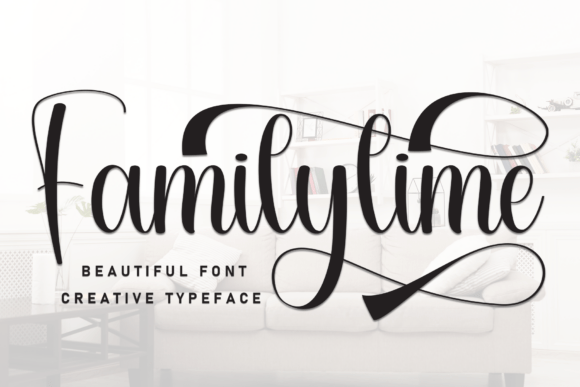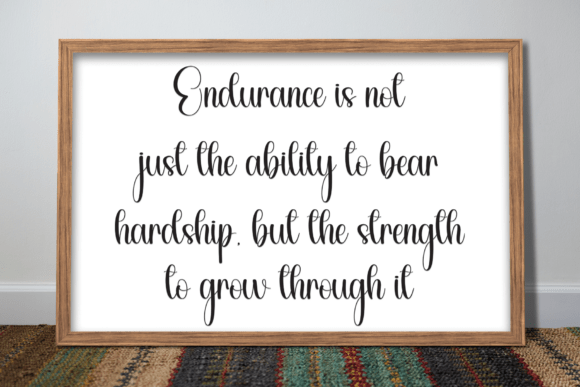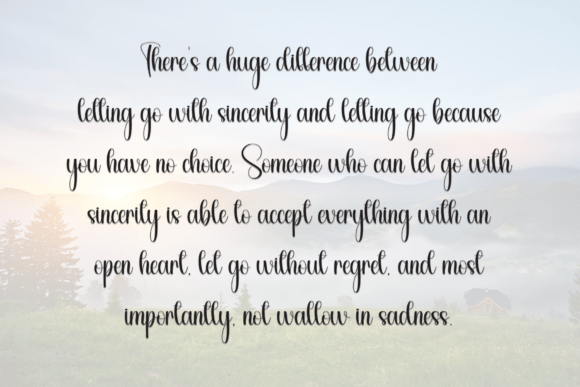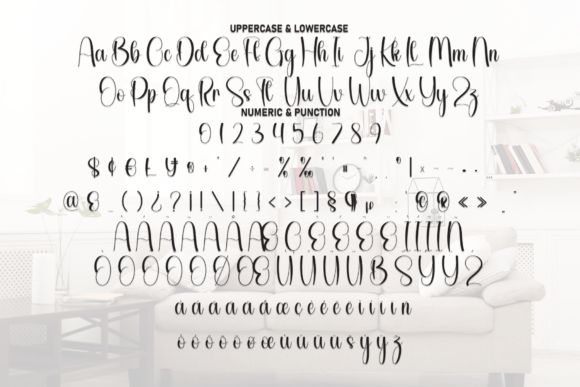
The Birth of a New Font: Capturing Life’s Pure Joy
Do you remember the first time you received a handwritten letter from a loved one? The way the ink bled onto the page, the imperfections that made it uniquely yours, and the sense of warmth that radiated from every word? It’s these small, human moments that Familytime Font aims to capture in its beautiful blend of handwriting and typography.
Designed to evoke the spontaneity and charm of artisanal work, Familytime Font is the perfect addition to any creative project seeking a relaxed elegance and a dash of whimsy. For designers, this font is a valuable tool in its ability to amplify the emotional resonance of a message, whether it’s a wedding invitation or a heartfelt note. By incorporating Familytime Font into your designs, you’ll be able to add a touch of enchantment that’s sure to leave a lasting impression.
Familytime Font Key Features
- Font Family: Familytime Font is a unique, custom-designed font family that includes multiple styles and weights.
- Unique Characteristics: Familytime Font features a distinctive, hand-drawn aesthetic with subtle irregularities, giving it a warm and inviting feel.
Designer Review: Familytime Font
Overall, I think the Familytime Font is a solid addition to any designer’s toolkit. ✨ Its friendly, approachable feel makes it perfect for family-focused projects, branding, and even children’s educational materials. The font is highly legible, making it easy to read even at smaller sizes.
One of the standout features of Familytime Font is its versatility. ✨ It comes in a range of weights, from light to bold, allowing designers to choose the perfect style to suit their project’s needs. The font also supports a wide range of languages, making it a great choice for international projects.
Limits and Drawbacks
While Familytime Font is a great choice for many projects, there are a few limitations to consider: ⚠️ The font may not be the best choice for more formal or professional projects, as its friendly feel may come across as too casual. Additionally, the font may not be as versatile as some other options when it comes to creative or experimental typography.
In conclusion, the Familytime Font is a great choice for designers looking for a friendly, approachable font that’s perfect for family-focused projects. While it may not be the best choice for every project, it’s a solid addition to any designer’s toolkit.
- Highly legible font
- Range of weights (light to bold)
- Supports a wide range of languages
- Perfect for family-focused projects, branding, and children’s educational materials
Familytime Font Practical Application Guide
Getting the Most Out of Familytime Font
To get the most out of the Familytime Font, use it in a variety of design elements, such as headings, titles, and body text.
Experiment with different font sizes and colors to create visual interest and emphasize important information.
The Familytime Font is ideal for:
- Family and parenting-related designs
- Children’s educational materials
- Wedding and event invitations
- Personalized gifts and stationery